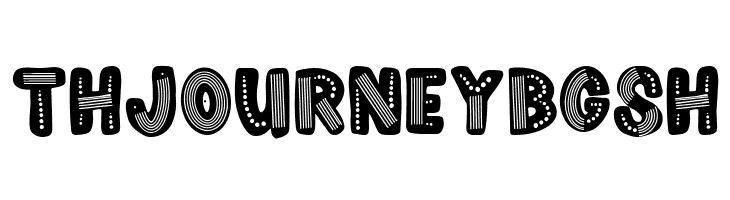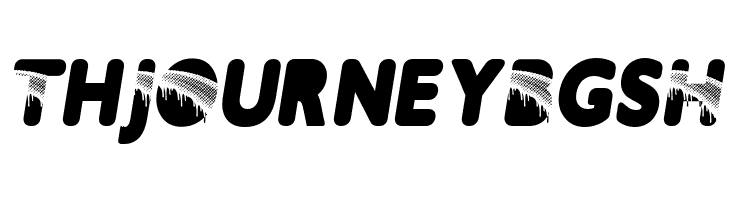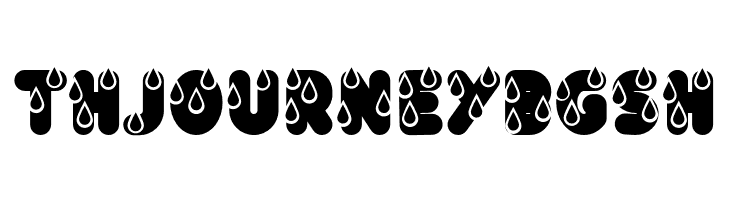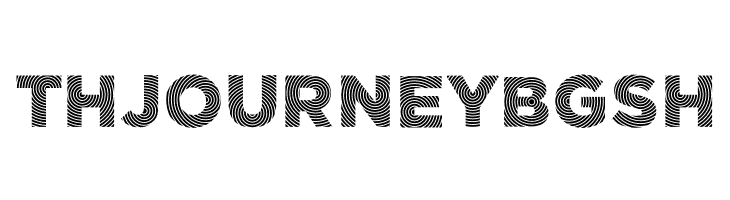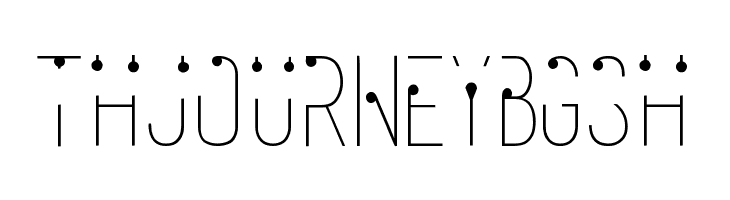
( Fonts by Fahmi Yanuar )
A bold, decorative font with concentric circular patterns creating a dynamic and artistic look.
( Fonts by Fahmi Yanuar )
A bold, decorative font with concentric circular patterns creating a striking visual impact.
A modern, minimalist font with geometric shapes and dot embellishments.
( Fonts by Stephanie Peay )
A playful, decorative font with bold, textured characters featuring lines and dots.
( Fonts by Billy Argel Fonts ® )
A bold, playful font with a dripping effect on uppercase letters and solid, rounded lowercase letters.
( Fonts by Design Vector10 )
A bold, playful font with raindrop motifs, perfect for creative and engaging designs.